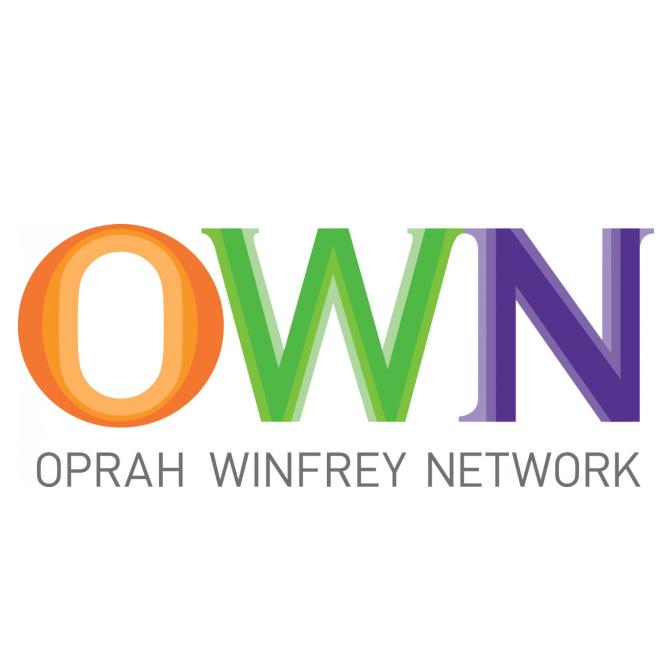
Oprah Winfrey Network Font
Fonts in UseThe Oprah Winfrey Network (OWN) is a cable television channel co-owned by Oprah Winfrey and Discovery, Inc. It features a mix of original programming, talk shows, documentaries, and acquired movies and series.
The TV network's logo appears to have been created by overlapping two typefaces, ITC Bookman Light by Edward Benguiat and FF Din by Albert Jan Pool, in different colors.
A slightly revised version of the logo was introduced on October 1, 2011, which featured the full network name in smaller type and removed serifs from the "W" and "N" characters.